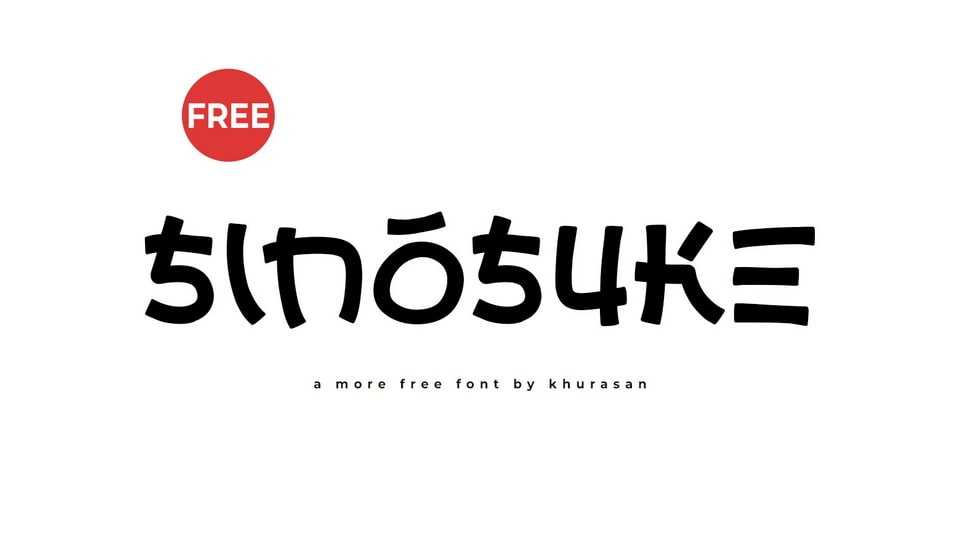
Download Sinosuke font, a Japanese-inspired hand-lettered typeface that gracefully captures the elegance and artistic essence of traditional calligraphy. Sinosuke font embodies the beauty of Japanese brushwork, transporting your text into a world where precision meets poetic expression.